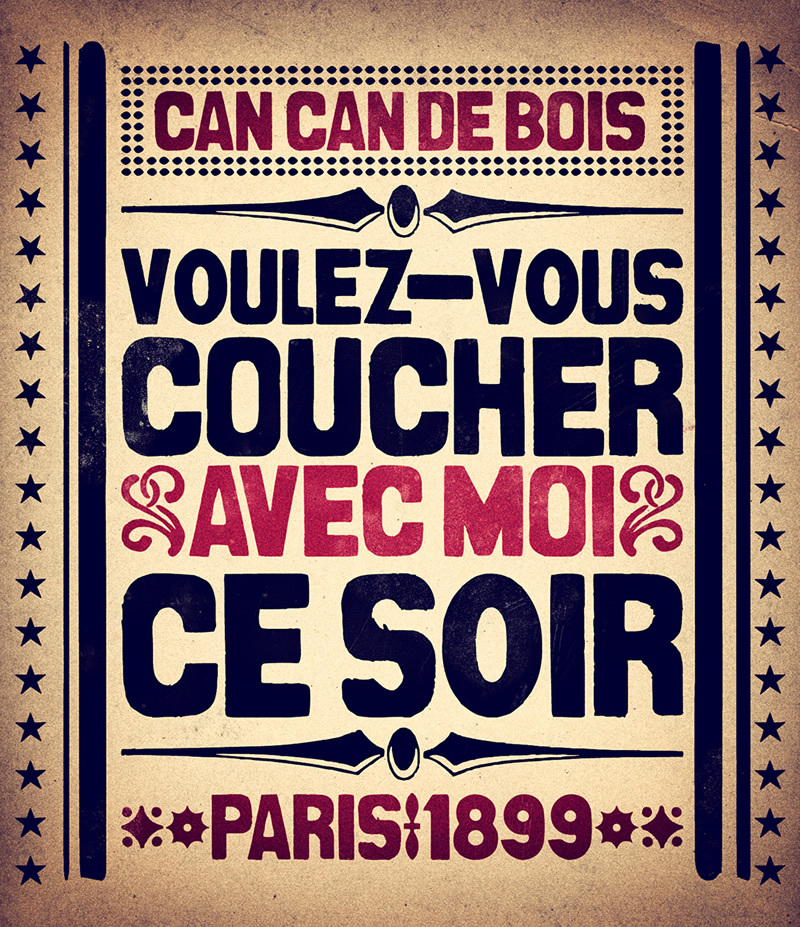
CanCan de Bois Bold by Germán Ventriglia is a free curly cartoon display font with chunky, irregular letterforms. Blunt block shapes meet looping strokes and bulbous curls.
A confectionery brand or children's venue could use its mix of sturdy mass and whimsical ornament. It also suits party posters, toy packaging, and playful merchandise. Across these uses, the oversized curves can echo candy shapes, balloons, and illustrated flourishes rather than acting as neutral lettering.